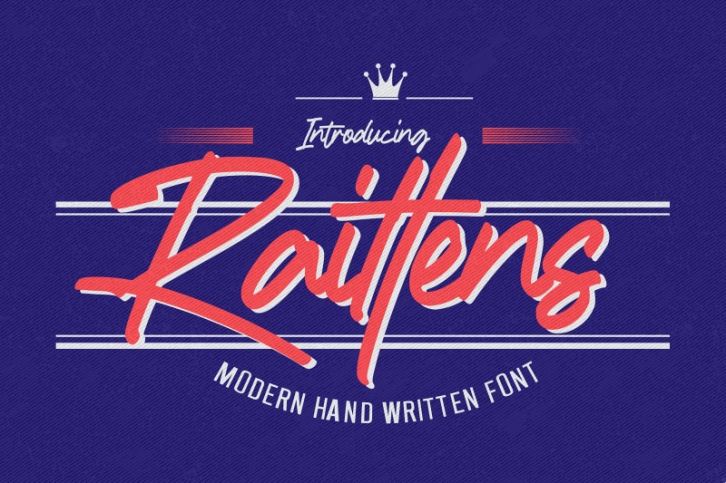
Introducing Raittens is Modern Handwritten Font is a Signature Style and classy style, this font is great for your creative projects such as watermark on photography, and perfect for logos & branding, invitation,advertisements,product designs, stationery, wedding designs,label ,product packaging, special events or anything that need handwritting taste.
Raittens a natural handwritten feel. This handmade font will make your design has a beautiful natural touch for each details. It is perfect for any design project as Invitation,logo, book cover, craft or any design purposes,photography overlays, signs, window art, scrapbooking, tags and so much more!